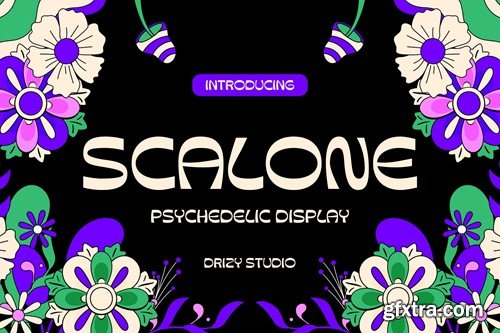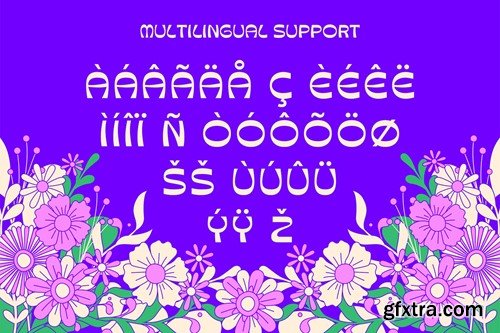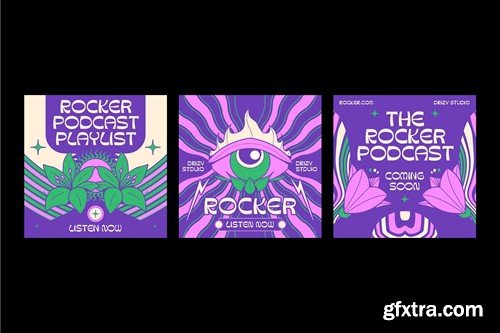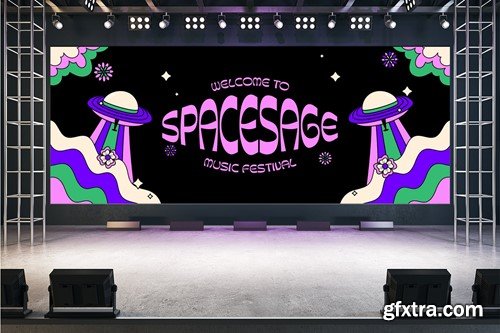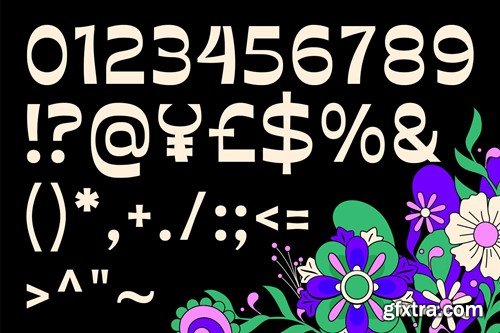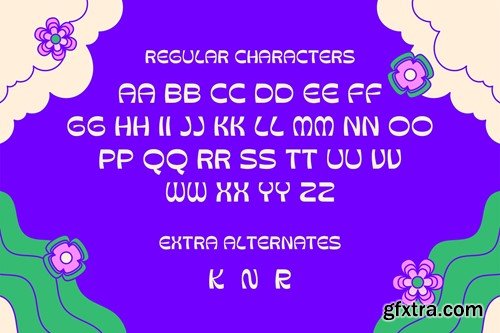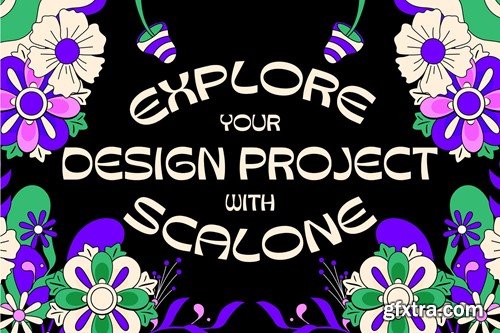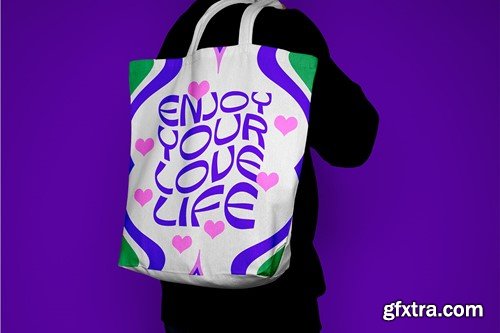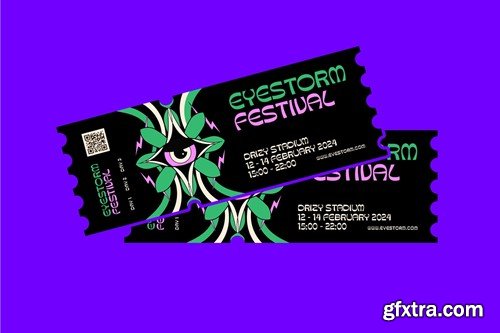
Scalone - Psychedelic Display Font
Scalone - Psychedelic Display Font Introducing Scalone - Psychedelic Display Font, a vibrant and mesmerizing typeface that effortlessly blends the retro charm of psychedelic art with a modern twist. This font is a celebration of creativity, individuality, and the bold spirit of the unconventional. Scalone features: Character Set Punctuation & Numbers Multilingual Support Alternates File Included: OTF & TTF Elevate and explore the design possibilities with this Psychedelic Font!